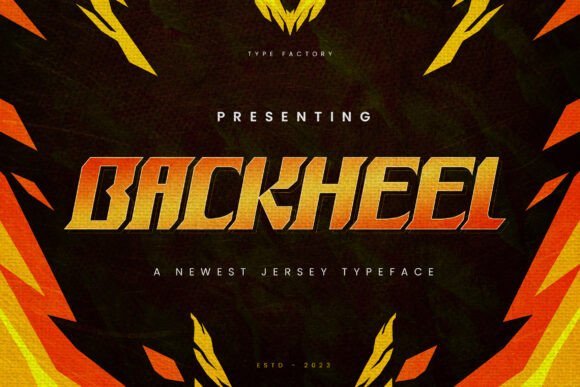
The Perfect Strike: Introducing the Backheel Font
Have you ever been in the middle of a design project, and the perfect font just seems to be out of reach? Like the moment when you’re on the verge of creating something amazing, but the right typography is the missing piece that makes it truly unforgettable? That’s exactly what happened to us when we discovered the Backheel Font – a game-changing jersey typeface that’s about to revolutionize the world of sports design.
This powerful font is specifically crafted for high-impact sports design, with a strong structure, clean lines, and a sporty aesthetic that’s sure to make your designs stand out. With its versatility and display style, the Backheel Font is a top choice for team uniforms, jersey numbers, logos, sports event posters, and fan merchandise. Whether you’re designing for football, basketball, or esports, this font brings speed, energy, and a competitive edge to your typography, making it a valuable asset for designers.
Key Features of Backheel Font
- Unique Characteristics: This font features a unique backheel-inspired design with a modern twist, making it perfect for creative and artistic projects.
Backheel Font Review
Overall, I think the Backheel Font is an interesting addition to any designer’s toolkit. ✨ The font’s unique blend of modern and vintage elements makes it a great choice for projects that need a touch of sophistication.
The font’s versatility is one of its strongest points. It works well for both digital and print applications, and its high-quality vector files make it easy to scale and manipulate. ✨ The font also includes a range of weights and styles, which gives designers a lot of flexibility when it comes to creating custom typography.
However, I do have a few concerns about the font’s limitations. ⚠️ For one thing, the font is not as widely supported as some other popular fonts. This can make it difficult to use in certain situations, such as when working with older software or operating systems. Additionally, the font’s unique design can sometimes be overwhelming or difficult to read, especially in large blocks of text.
Overall, I think the Backheel Font is a great choice for designers who want to add a touch of elegance and sophistication to their projects. With careful use and consideration, it can be a real asset in any designer’s toolkit.
The Backheel Font is perfect for:
- Adding a touch of vintage charm to your designs.
- Creating a distressed or worn-out effect.
- Designing for social media and online platforms.